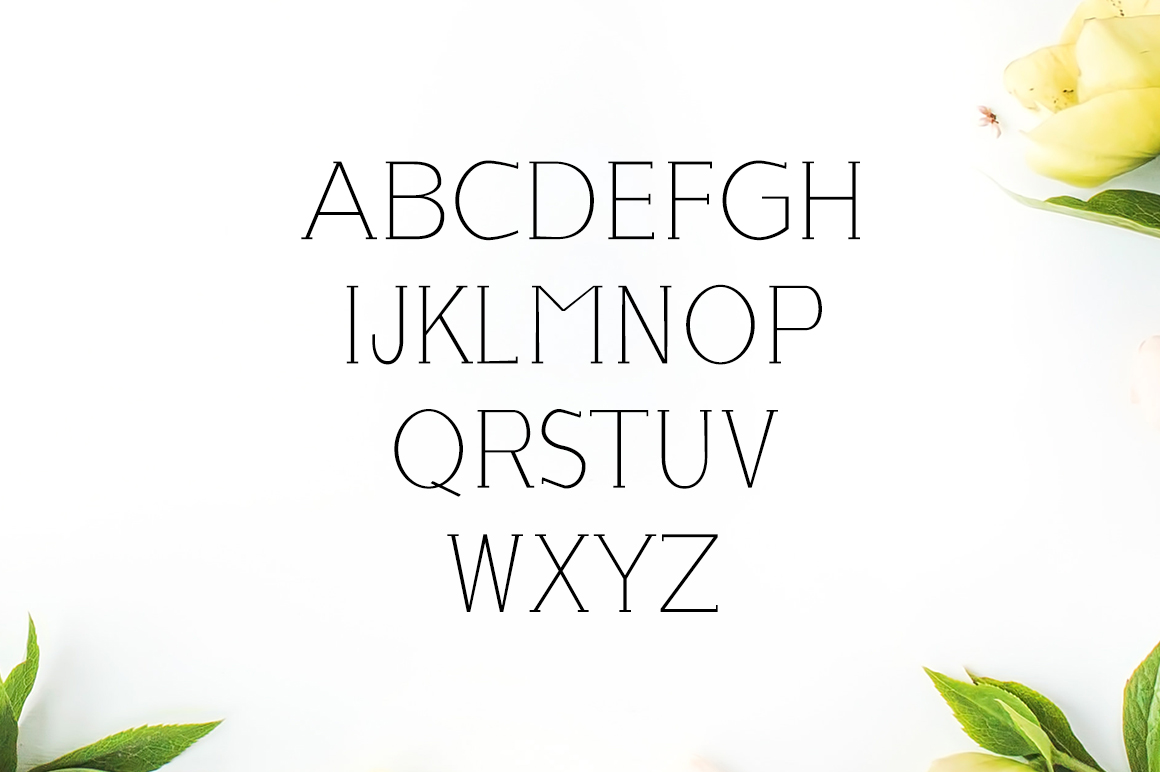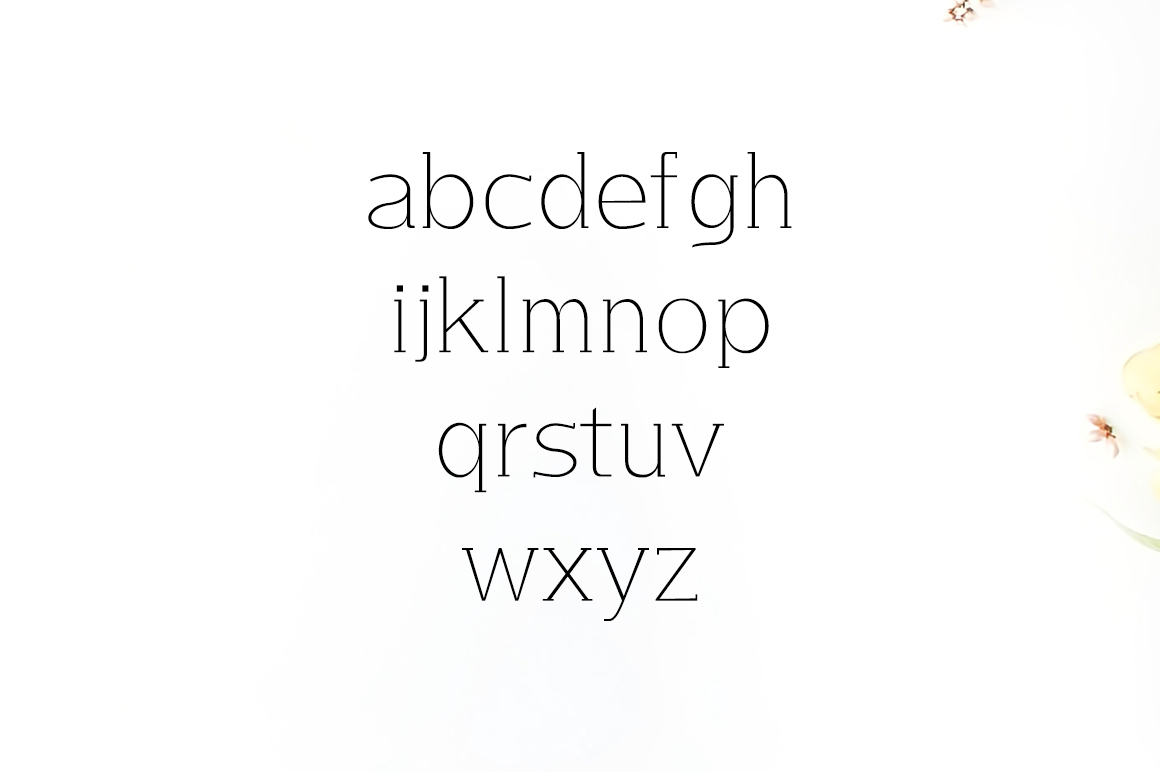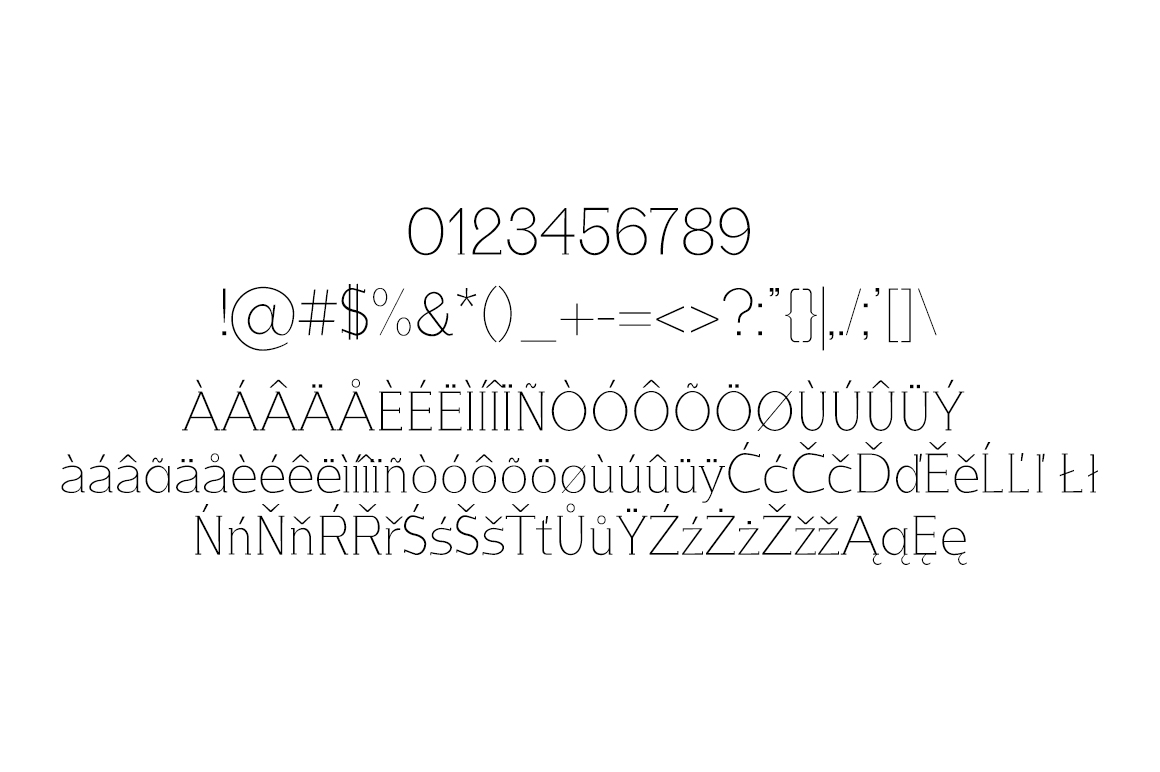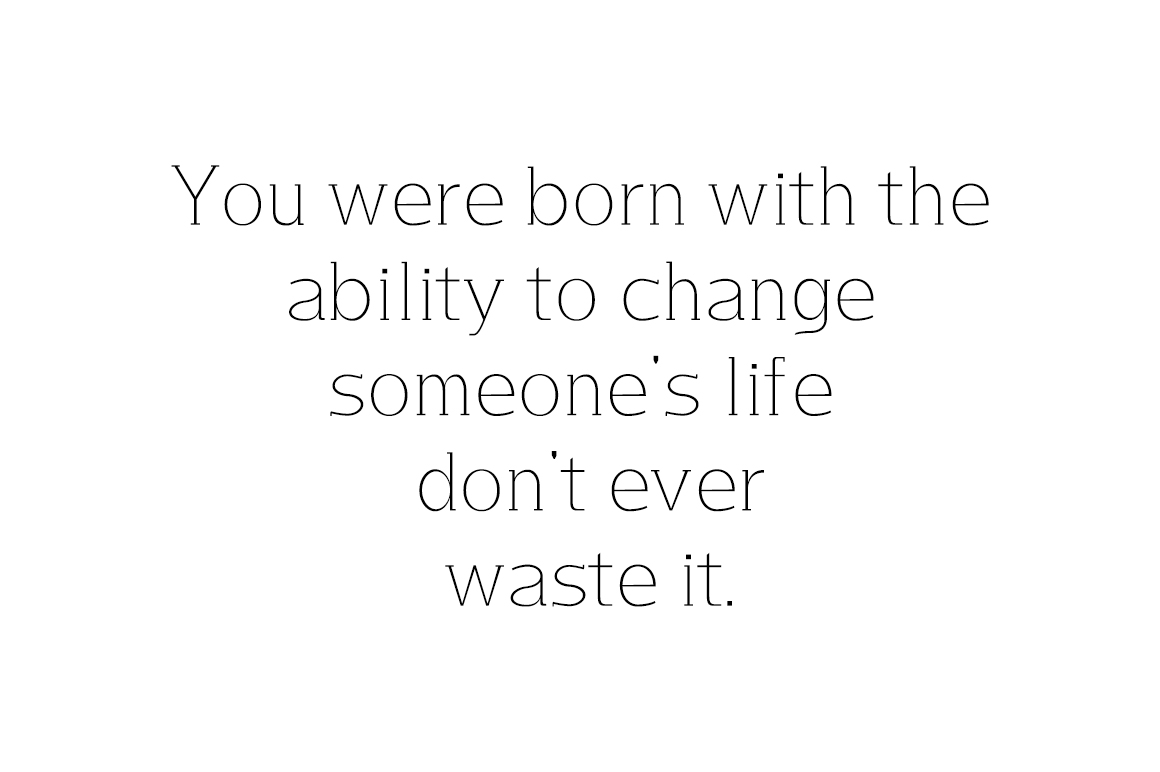
Lisandro: A Stylish and Modern Slab Serif Font
Lisandro is a stylish slab serif font that stands out with its modern conception and design. This unique typeface offers designers a powerful tool for creating eye-catching and creative displays.
Key Features of Lisandro Font
- Modern Design: Lisandro’s contemporary aesthetic makes it perfect for current design trends.
- Thin Slab Serif: Unlike traditional heavy slab serifs, Lisandro offers a more delicate and refined look.
- Stylish Appearance: This font allows you to make each word look completely stylish and distinctive.
- Versatile Application: Ideal for creative displays and various design projects.
Perfect for Creative Displays
Lisandro’s unique characteristics make it particularly well-suited for:
- Modern branding and logo design
- Eye-catching headlines and titles
- Editorial layouts requiring a contemporary touch
- Creative advertising and marketing materials
Comparison with Other Slab Serif Fonts
While Lisandro shares the slab serif classification with fonts like Tecnica Slab Family, its thin and modern design sets it apart. Unlike more traditional slab serifs such as Osgood Slab, Lisandro offers a more contemporary and refined aesthetic suitable for designs that require a touch of elegance.
When incorporating Lisandro into your designs, consider the following tips:
- Use it for headlines or short blocks of text to showcase its unique style
- Pair with sans-serif fonts for a balanced, modern look
- Experiment with different sizes to create hierarchy while maintaining readability
- Consider using it in projects where you want to combine slab serif structure with contemporary elegance
Lisandro is an excellent choice for designers looking to add a modern and stylish slab serif to their typographic toolkit. Its thin design and contemporary aesthetic make it stand out in the world of slab serif fonts. Whether you’re working on logo designs, editorial layouts, or creating eye-catching website headers, Lisandro offers the perfect blend of style and readability.